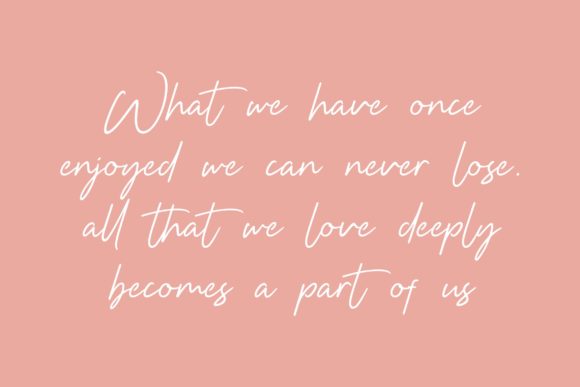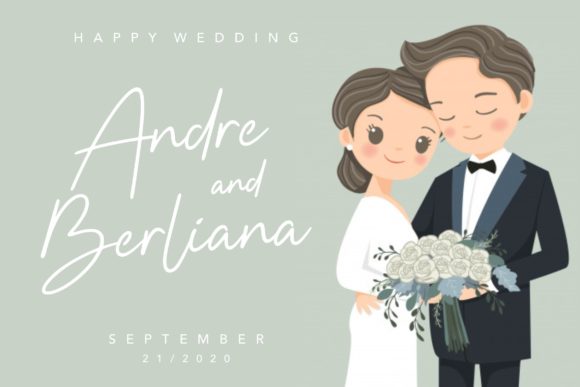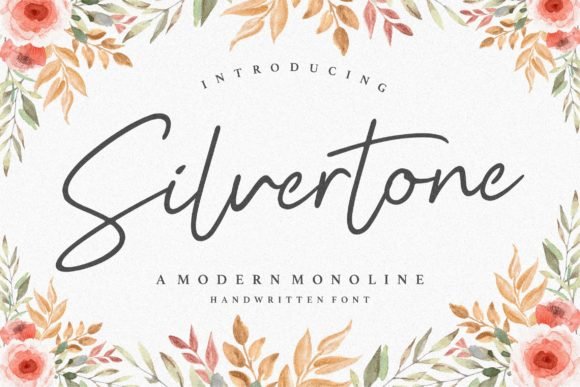
Introduction to Silvertone Font
Silvertone is a sweet and delicate handwritten font.
Clean and fashionable, this font looks amazing on a variety of designs, both formal and informal .